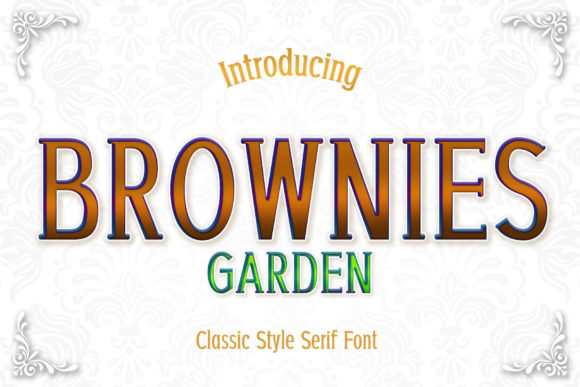
Brownies Garden Font: Elevate Your Designs with Elegance
Brownies Garden is a neat and elegant serif font that has been making waves in the design community. Its versatility and classic charm make it an excellent addition to any creative project. In this article, we’ll dive into the world of Brownies Garden Font, exploring its features, uses, and benefits for designers and crafters alike.
The Essence of Brownies Garden Font
Brownies Garden Font is characterized by its clean lines, elegant serifs, and sophisticated feel. This font is perfect for designers looking to add a touch of refinement to their work. Whether you’re creating a logo, brochure, or website, Brownies Garden Font can easily be matched to an incredibly large set of projects, making it a valuable asset in your design arsenal.
Key Features of Brownies Garden Font
- Neat and Elegant Design: Brownies Garden Font boasts a sleek and polished design, making it perfect for projects that require a high level of sophistication.
- Serif Font: The font’s serif design adds a touch of classic elegance, making it suitable for a wide range of applications, from formal documents to creative projects.
- Versatility: Brownies Garden Font can be used in various contexts, including logos, headings, body text, and more.
- Easy to Read: The font’s clear and legible design ensures that your text is easy to read, making it perfect for both digital and print materials.
Brownies Garden Font offers numerous benefits for designers and crafters, including:
- Time-Saving: With Brownies Garden Font, you can quickly create professional-looking designs without spending hours on font selection and formatting.
- Consistency: The font’s consistent design ensures that your brand’s visual identity remains cohesive across different platforms and materials.
- Creativity Boost: Brownies Garden Font’s elegant design can inspire creativity and help you think outside the box when working on your projects.
- Wide Compatibility: The font is compatible with various design software, making it easy to integrate into your workflow.
Using Brownies Garden Font in Your Designs
So, how can you make the most of Brownies Garden Font in your designs? Here are a few ideas:
- Logos and Branding: Use Brownies Garden Font to create a sophisticated logo or add a touch of elegance to your brand’s visual identity.
- Print Materials: The font is perfect for creating business cards, brochures, and other print materials that require a professional look.
- Digital Designs: Brownies Garden Font can be used in website designs, social media graphics, and other digital materials to add a touch of sophistication.
- Crafting and DIY Projects: The font can also be used in crafting and DIY projects, such as making cards, gift tags, and other handmade items.
Tips and Tricks for Working with Brownies Garden Font
To get the most out of Brownies Garden Font, here are a few tips and tricks to keep in mind:
- Experiment with Font Sizes: Try different font sizes to create visual hierarchy and add emphasis to important text.
- Pair with Other Fonts: Brownies Garden Font can be paired with other fonts to create a unique and visually appealing design.
- Adjust Line Spacing: Adjusting line spacing can help improve readability and create a more polished design.
Brownies Garden Font is a versatile and elegant serif font that can elevate your designs and add a touch of sophistication. Its neat and elegant design, versatility, and ease of use make it an excellent addition to any design project. Whether you’re a designer, crafter, or DIY enthusiast, Brownies Garden Font is sure to become a valuable asset in your creative toolkit.
So, add Brownies Garden Font to your creative ideas and notice how it makes them stand out! With its classic charm and modern appeal, this font is sure to take your designs to the next level.